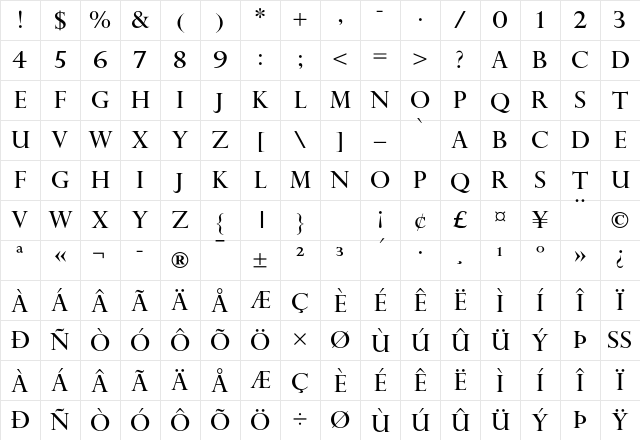
Perpetua Titling MT Std Regular
Design Context for Perpetua Titling MT Std
Perpetua Titling MT Std is a composed and adaptable typeface that performs quietly and consistently across a wide range of design contexts.
Pro Tip: Use Perpetua Titling MT Std in both headline and body roles to test its range before committing to a single application.